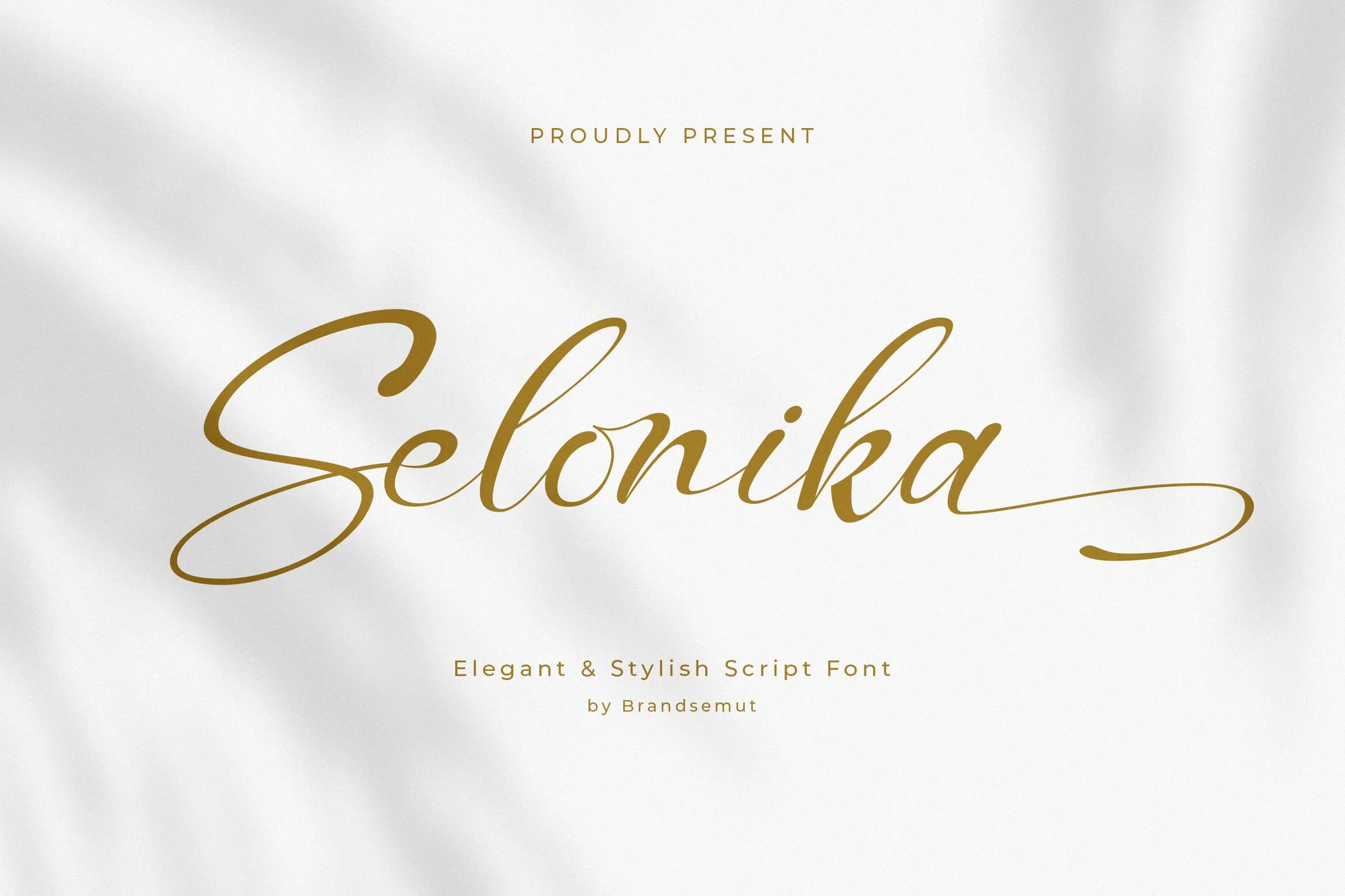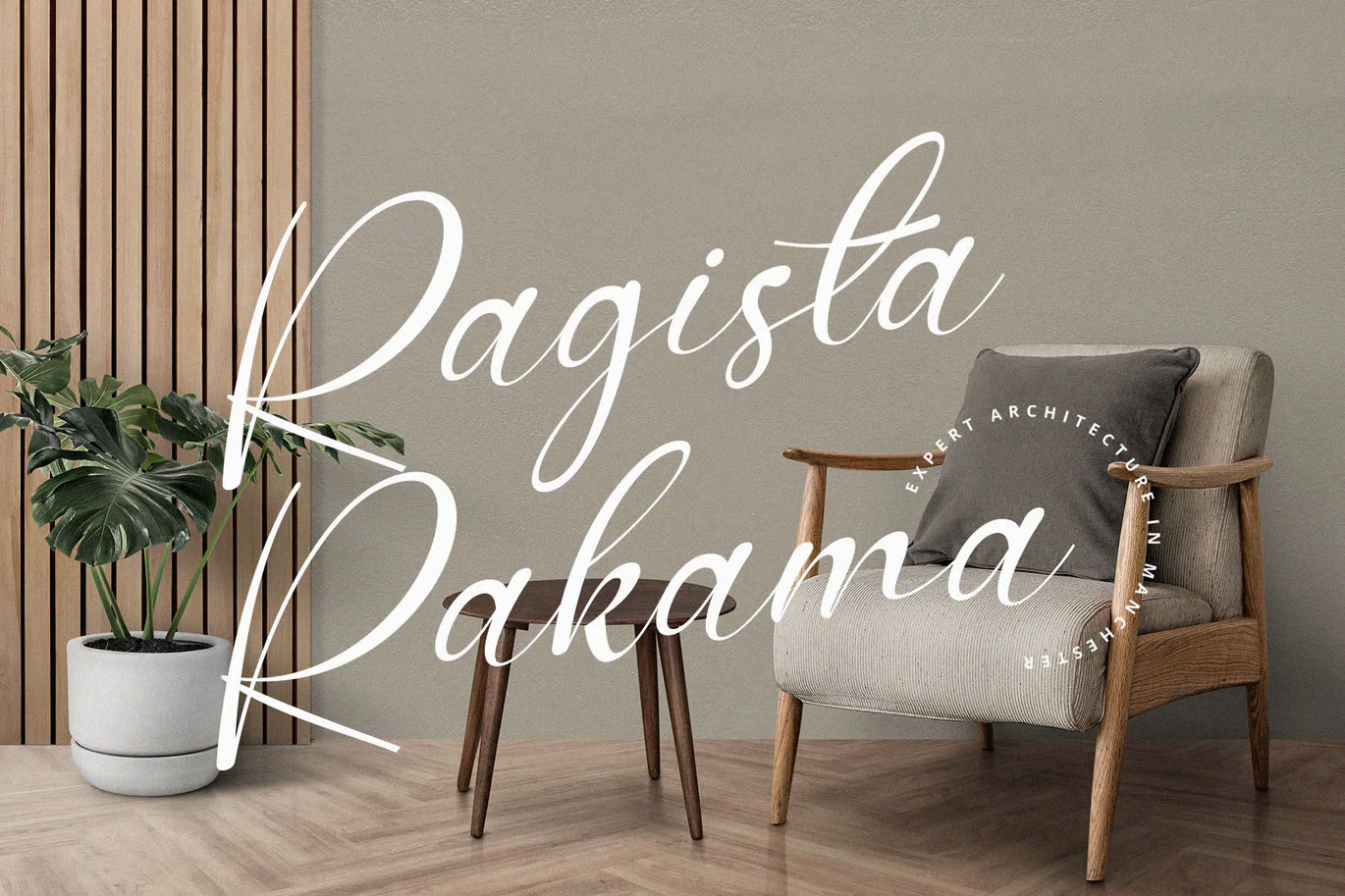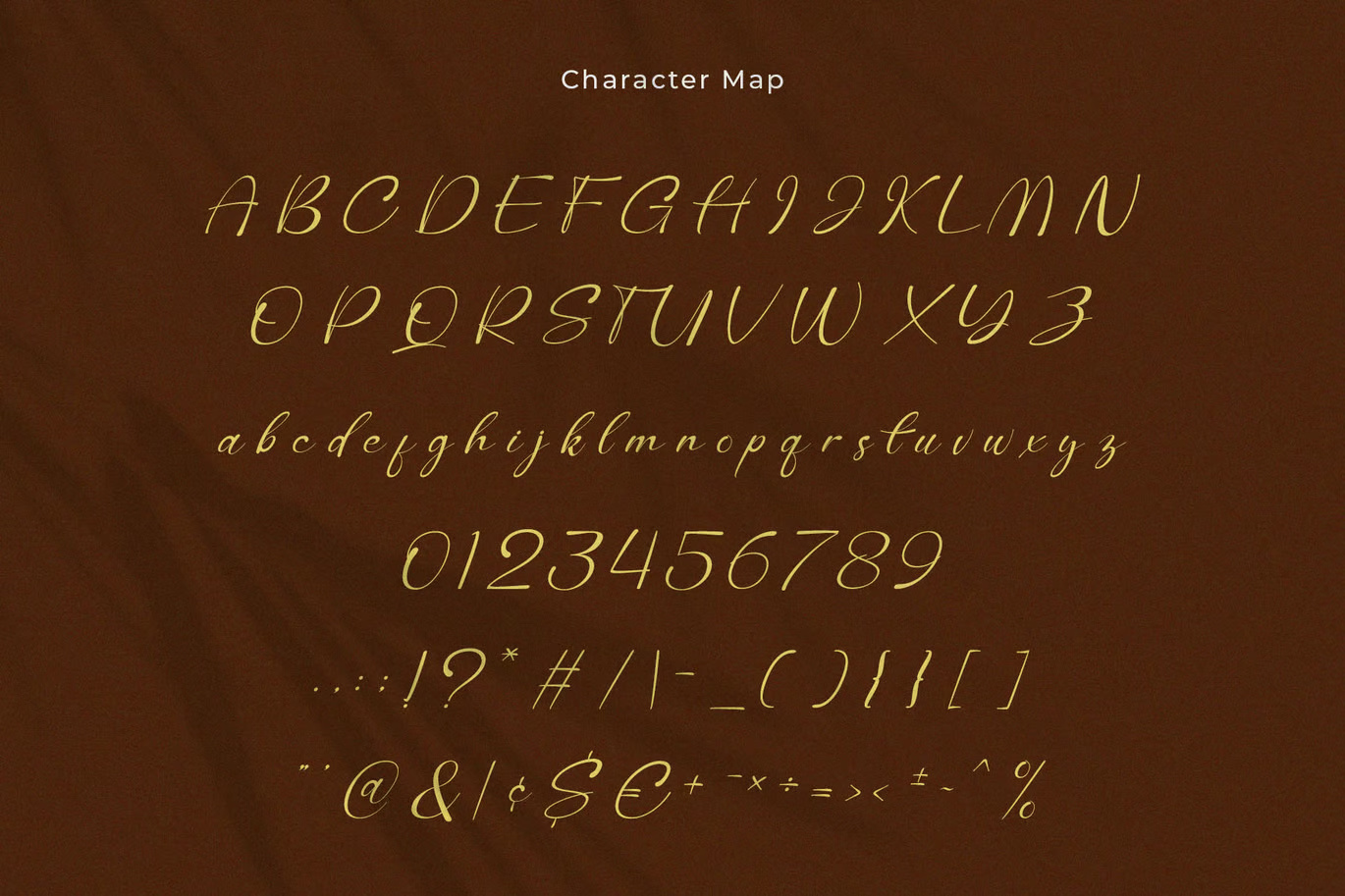
Selonika Handwritten Script Font
Introducing the New Selonika Script Font – a beautifully elegant and stylish handwritten script that adds a personal and refined touch to any creative project. Selonika Script is perfect for branding, invitations, logos, packaging, social media graphics, and more. This font includes a full set of uppercase and lowercase letters, numerals, punctuation, and multilingual support, making it versatile for various design needs. Whether you’re crafting a modern wedding invite or a chic product label, Selonika Script will bring your vision to life with sophistication and charm.
Selonika Modern Handwritten Script Font